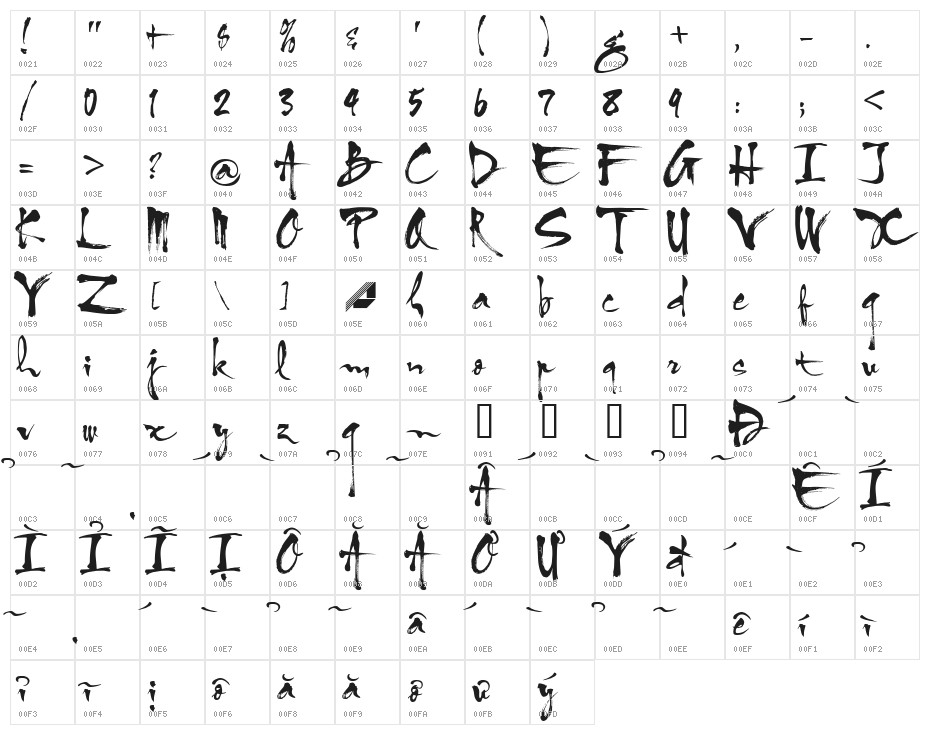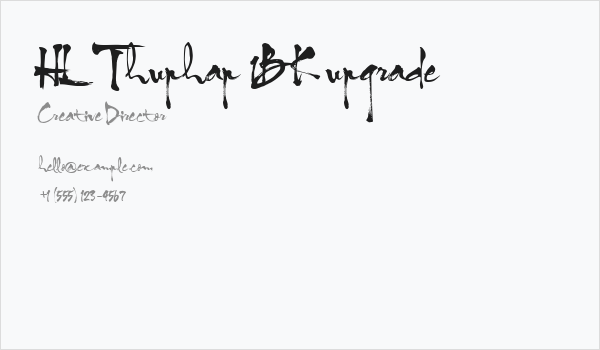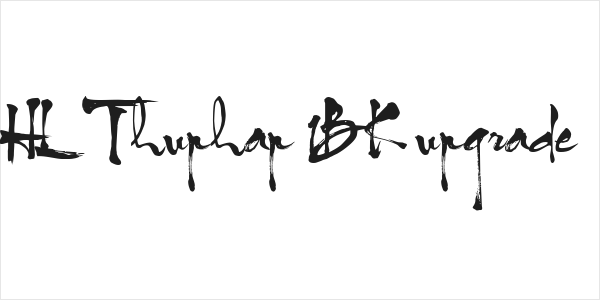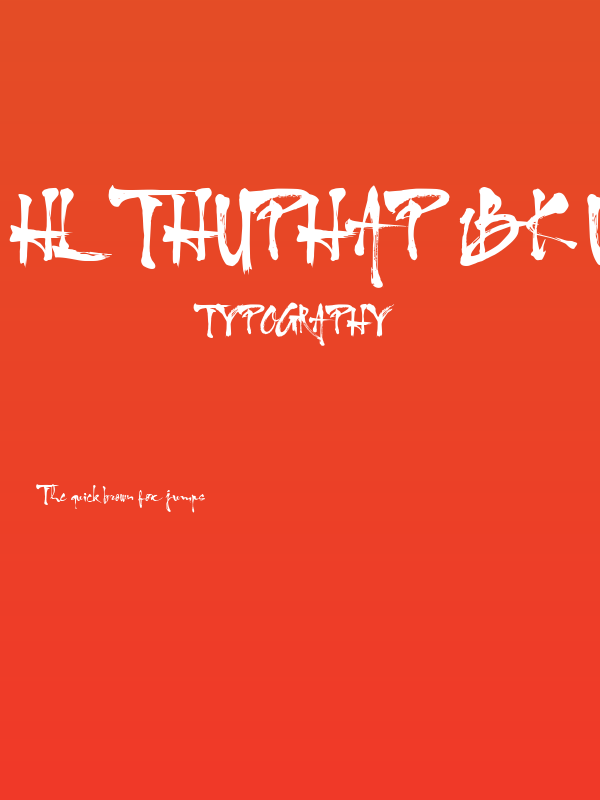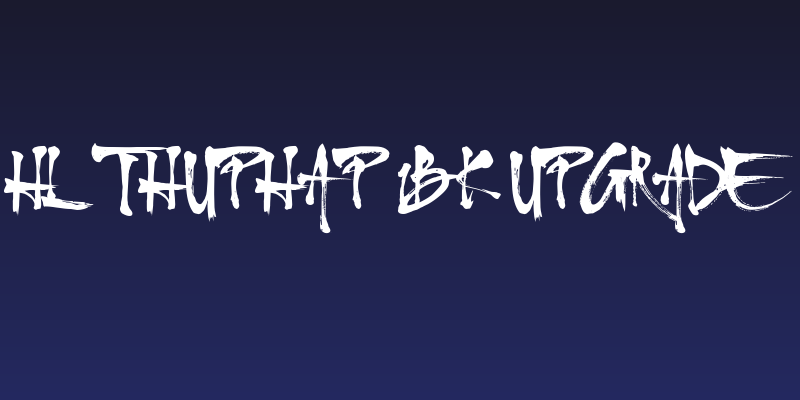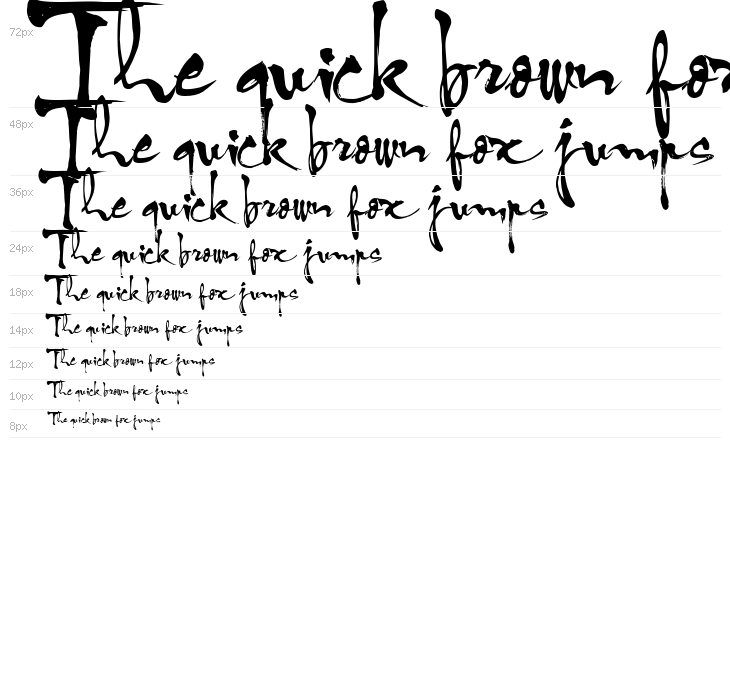
HL Thuphap 1BK upgrade Font
HL Thuphap 1BK upgrade Description
This font exhibits a dynamic and expressive style, reminiscent of traditional calligraphy with a modern twist. The strokes are bold and fluid, creating a sense of movement and energy. Each character is uniquely crafted, featuring varying thicknesses and artistic flourishes that give it a hand-painted appearance. The uppercase letters are particularly striking, with dramatic swashes and a sense of grandeur. The lowercase letters maintain a consistent flow, enhancing readability while retaining the artistic flair. Numbers and special characters are equally expressive, making this font versatile for creative projects.
| Proposed Projects | Ideal for branding, poster design, invitations, and artistic projects requiring a personal touch. |